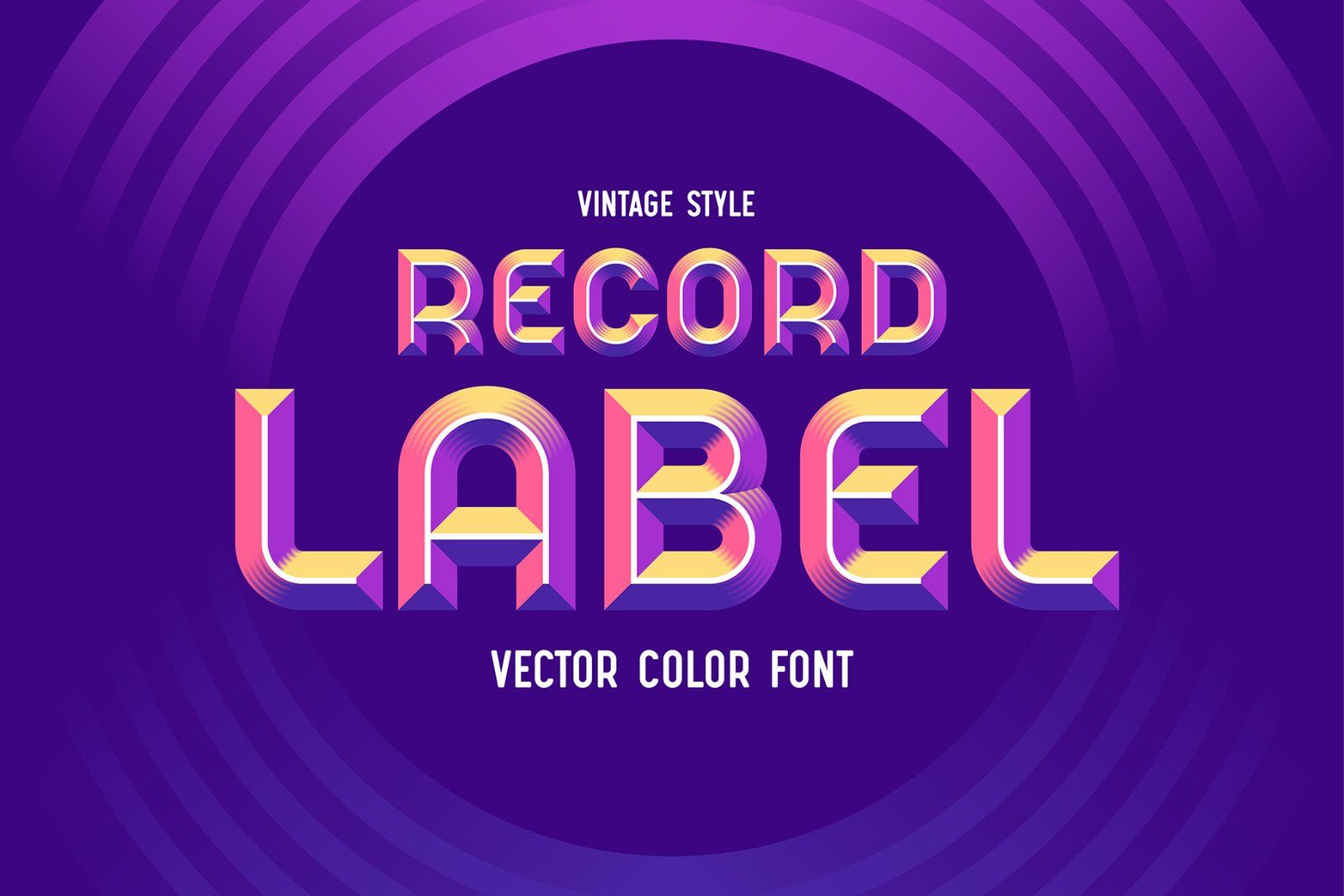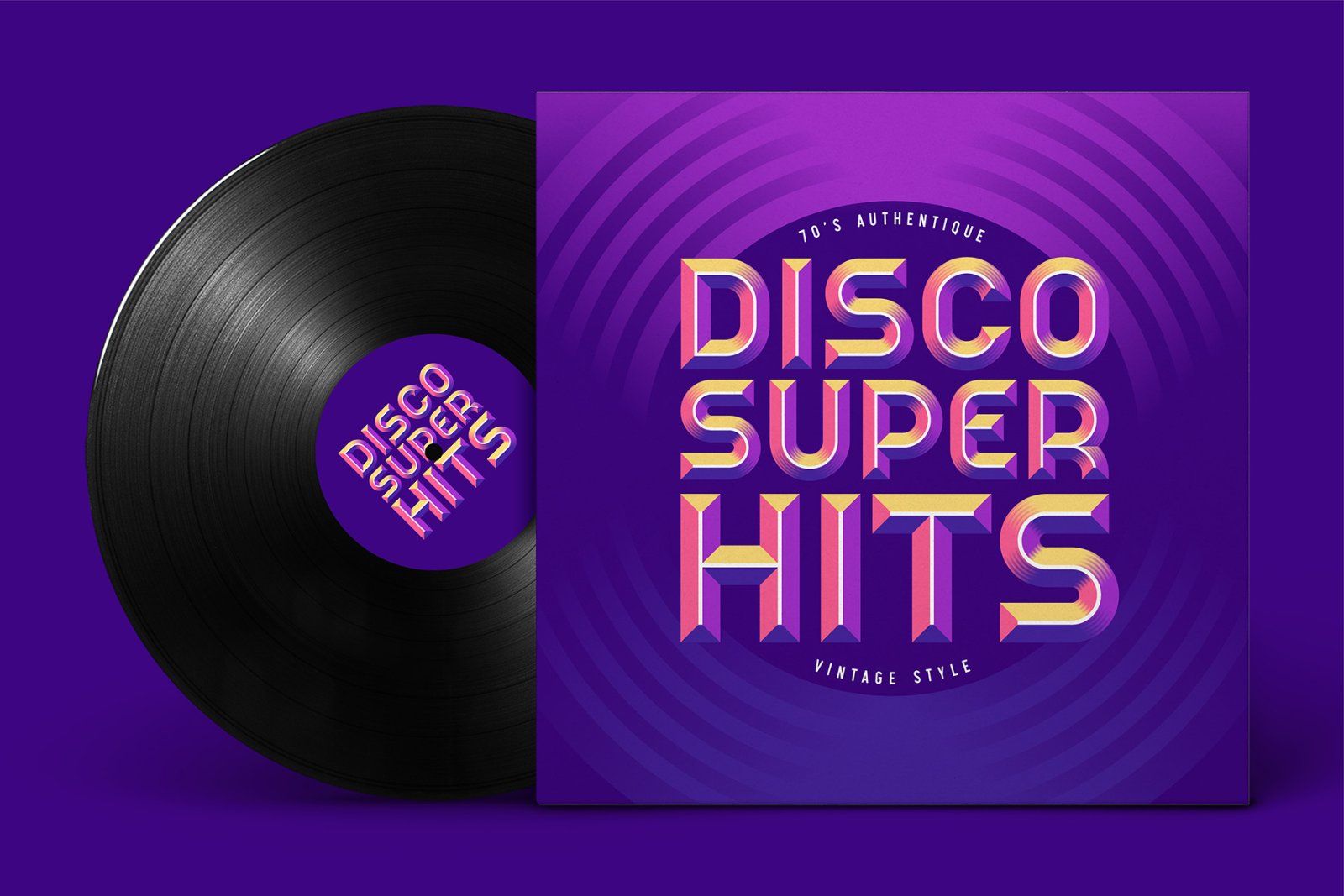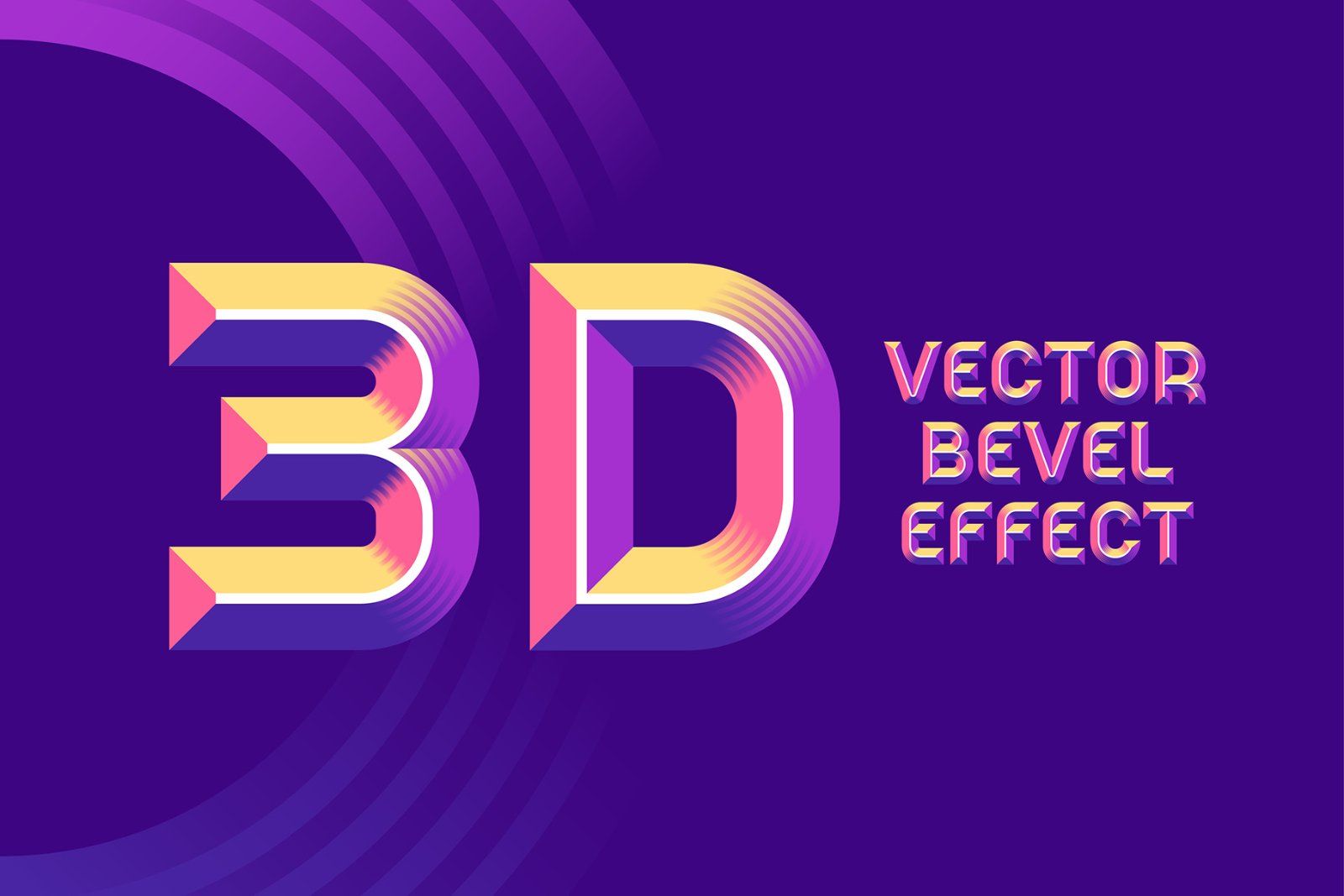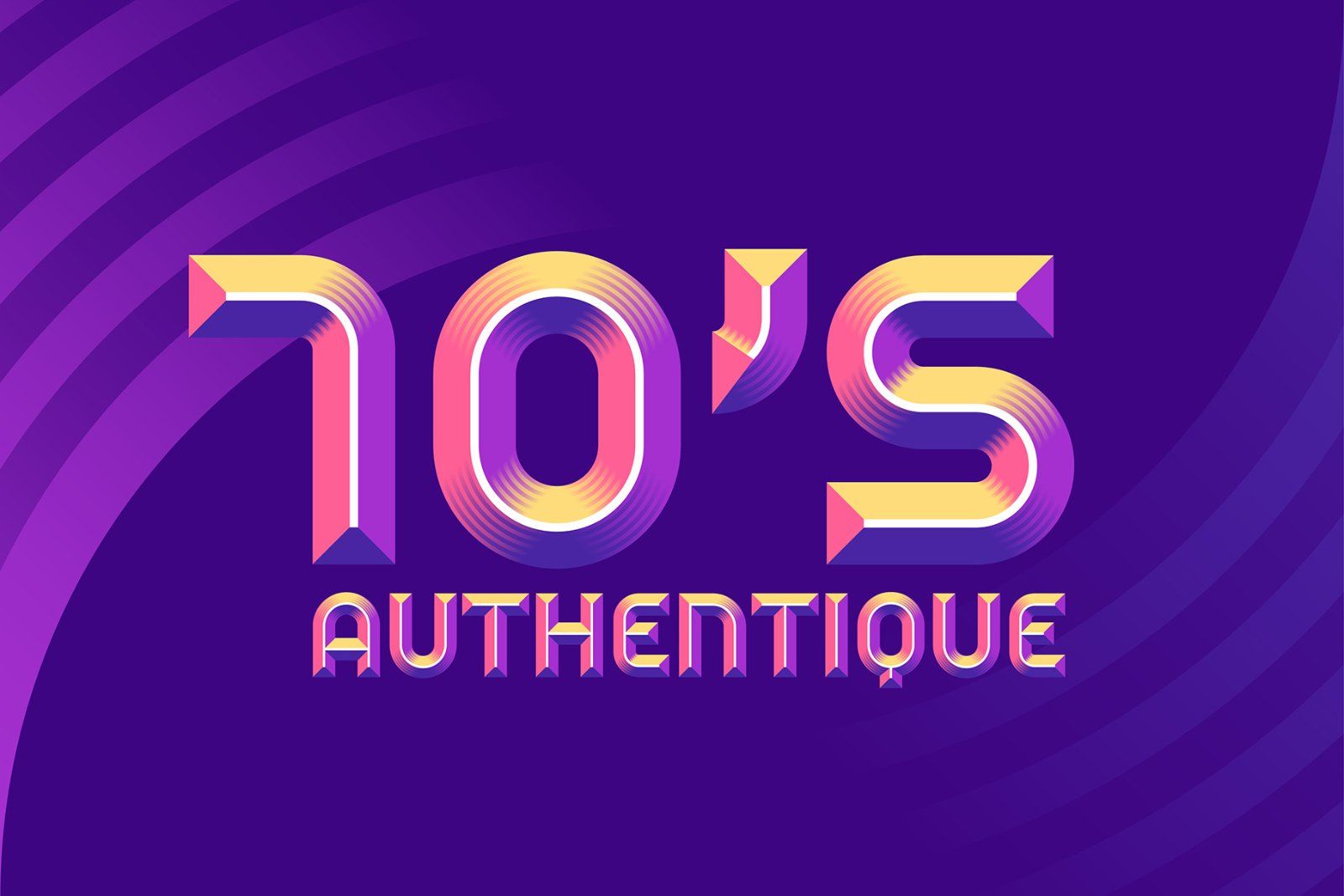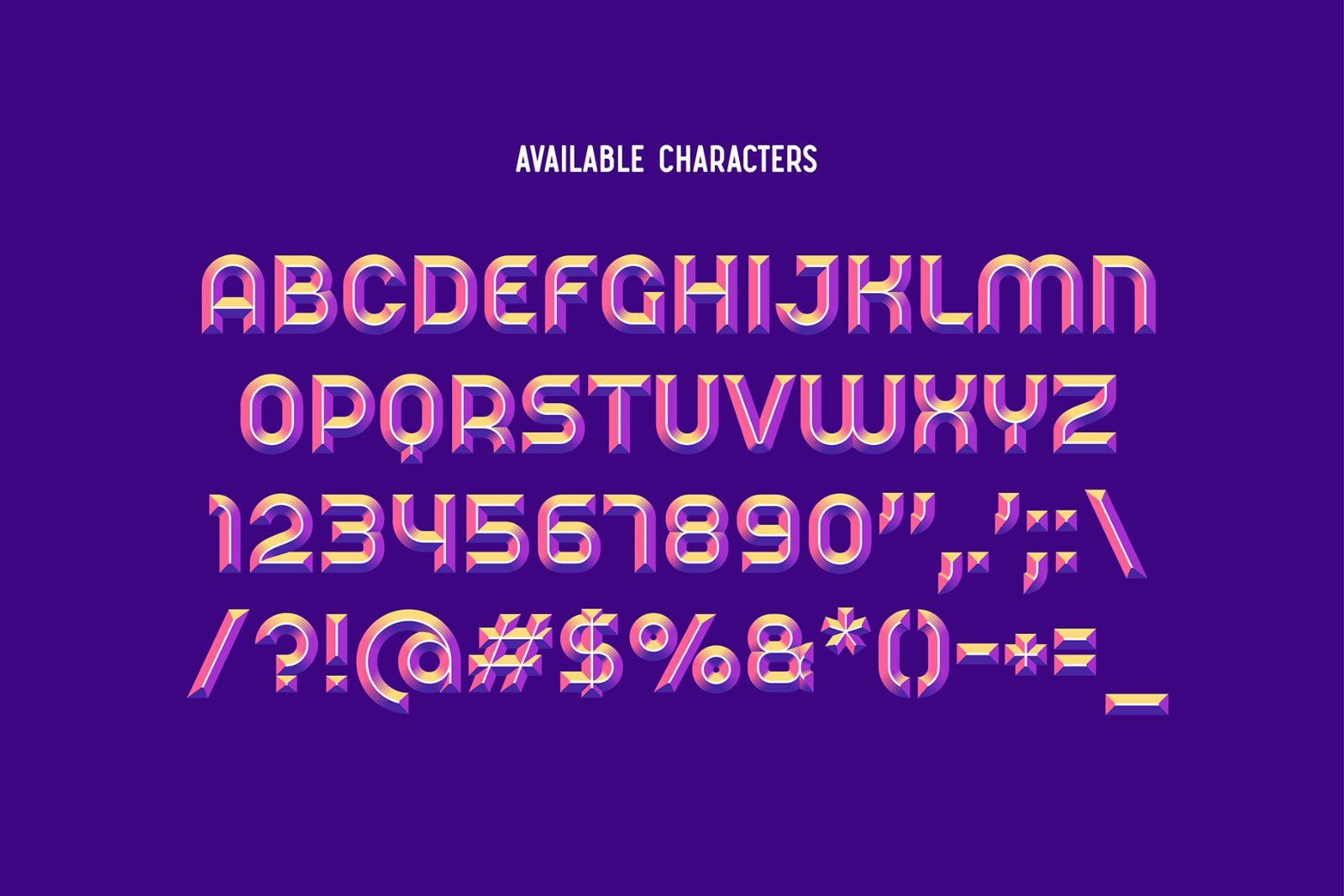
Hello! Introducing a vector color font named Record Label. It's a vintage style all caps typeface with 3d bevel effect. Inspired by 70's disco culture, Record Label font looks better in big size, when all tiny gradient lines are visible. Also a separate vector letters in SVG format are included.